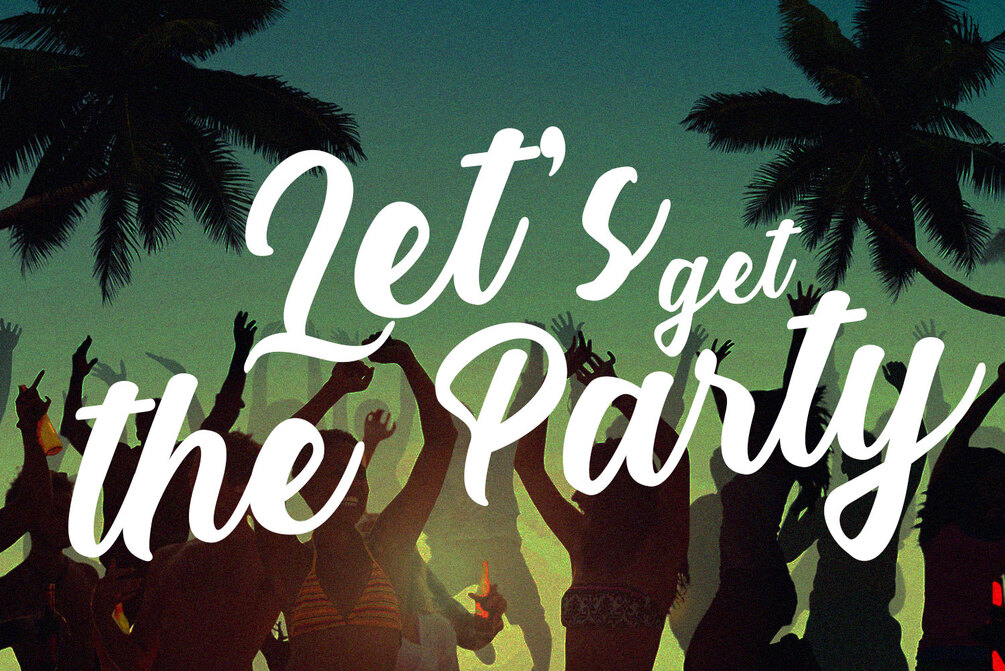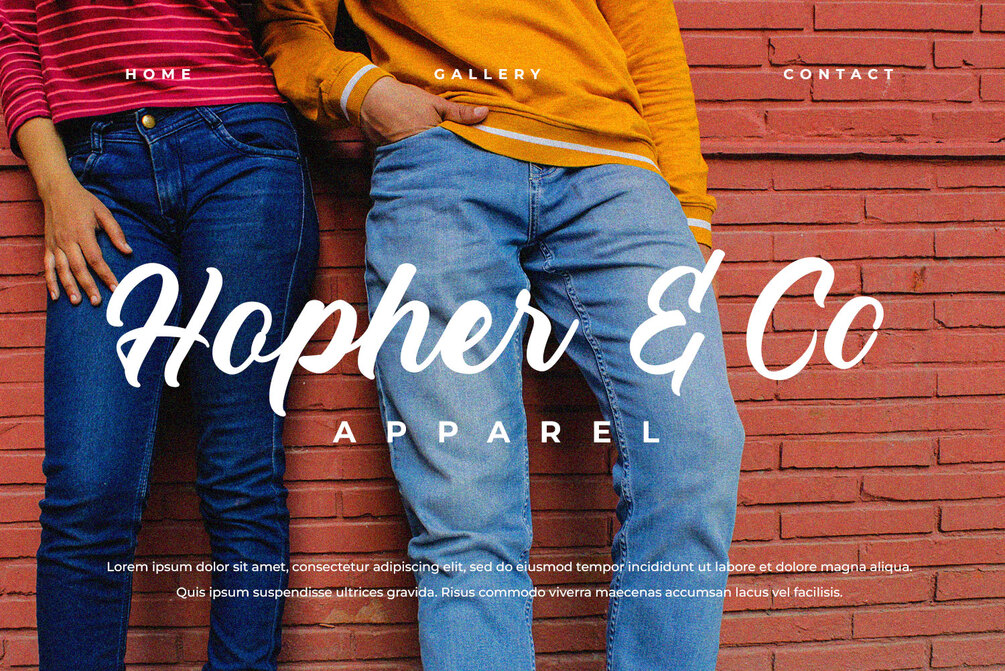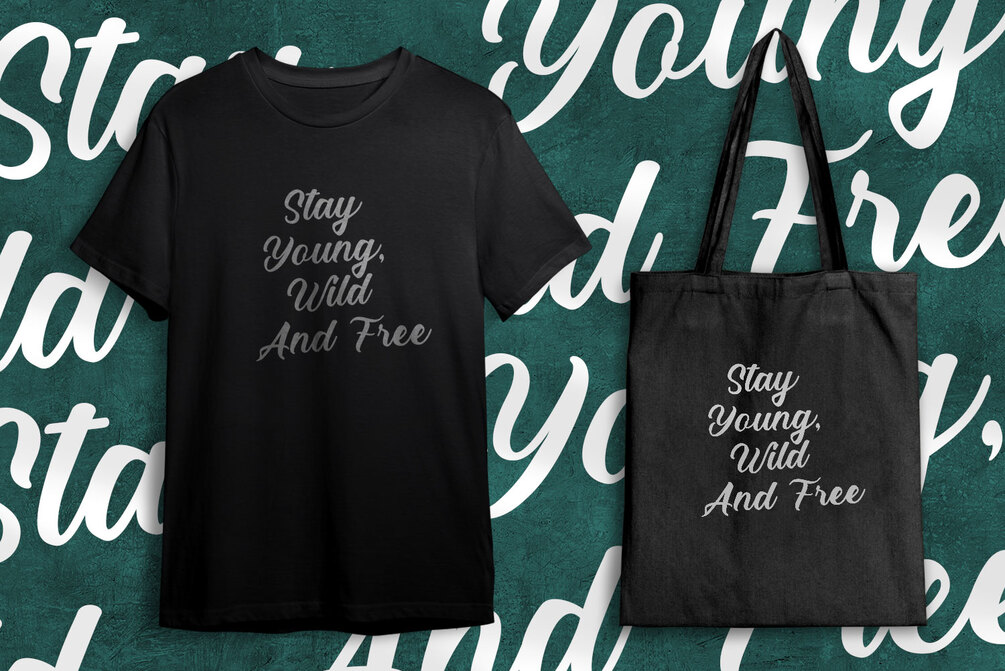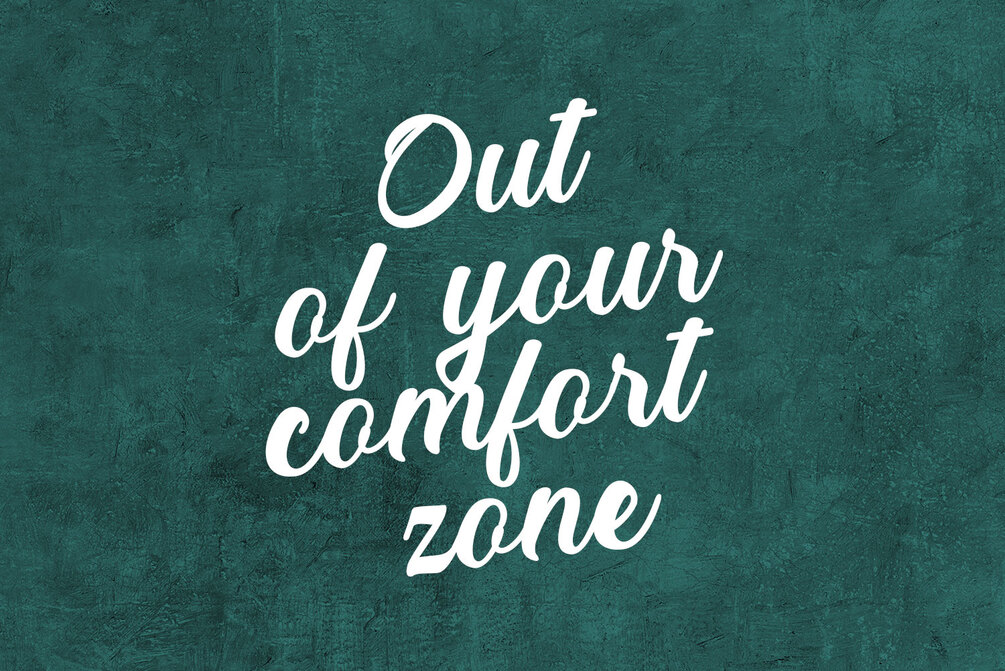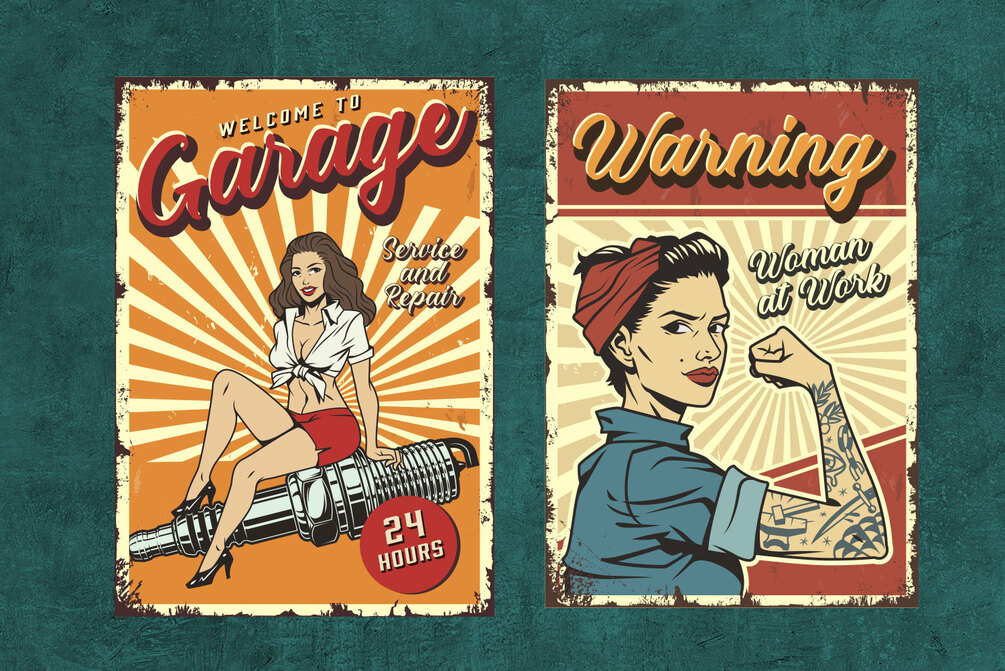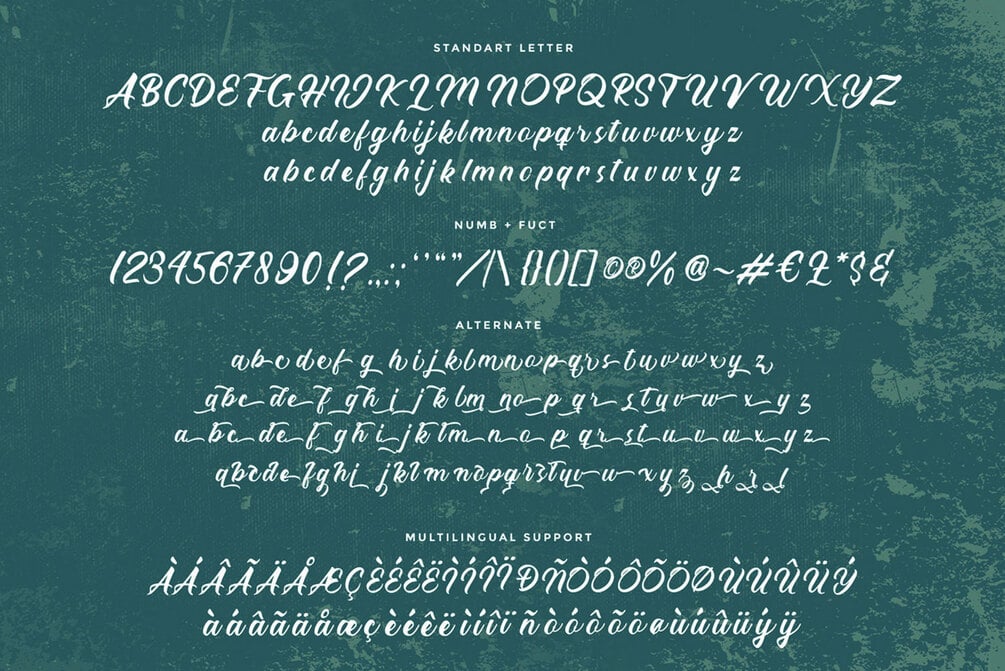
The Director Script
Proudly present bold retro script font “The Director Script”.
The Director Script is Inspired by Vintage style and combined with Hand Lettering style. Every single curve has my personality touch since I use my manual handlettering brush. It is great for making logotype, branding, promotional ads, quotes design, packaging, t-shirt design. merchandise, poster, merchandise, social media and much more. Coming up with more than 100+ stylistic alternates and ligatures you can make so many alternative choices based in your creativity. The Director Script is here to make your work or your business to high level!!!
Features
- Basic Latin A-Z and a-z
- Numberial and Functional
- alternate and ligature